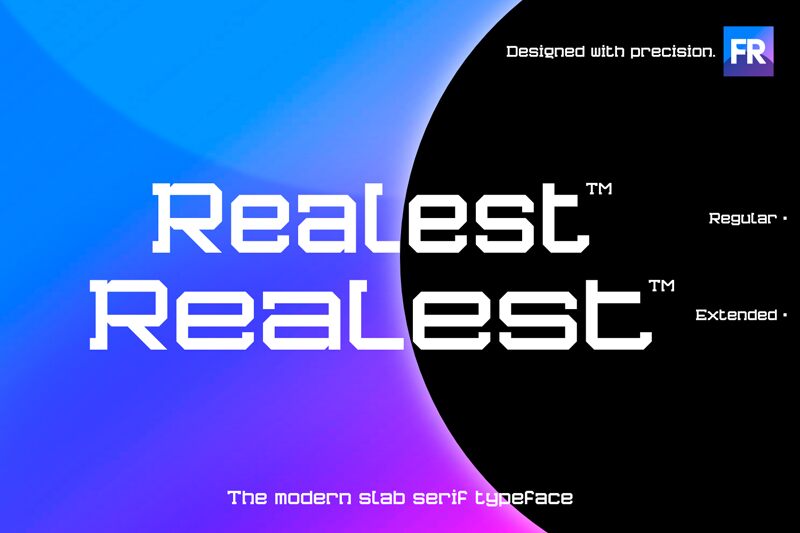
Realest Extended
Realest Expanded font by Asa Childress is a futuristic display font with monumental proportions and an extremely modern taste. It’s square, geometric, structured, and inspired by the tech world through which many of us browse every day, but its features are even more intense. Designed in capitals this expanded width typeface is perfect for standing out projects.
Effortlessly attract attention with this free display font in posters, greeting and invitation cards, heavy headings, music album covers, TV programs banners or intros/outros. Other usages include books covers for adults or kids alike as well as physical advertisements for all industry fields.